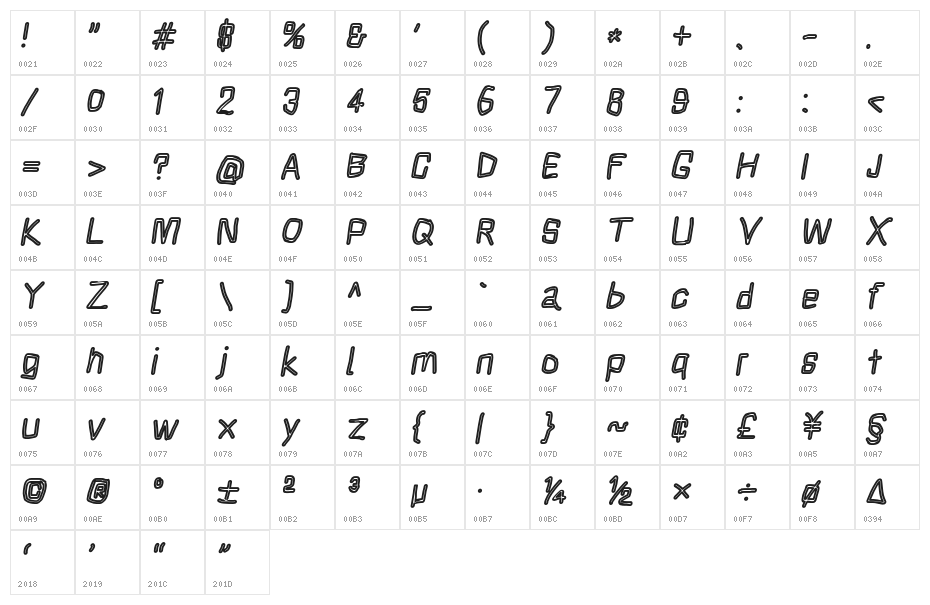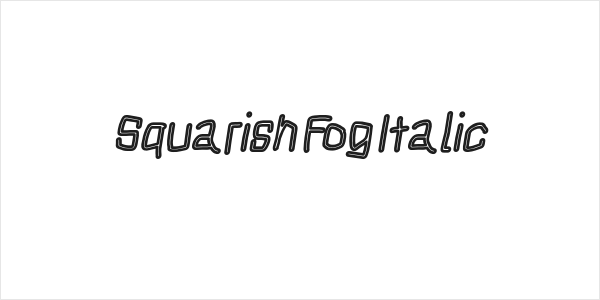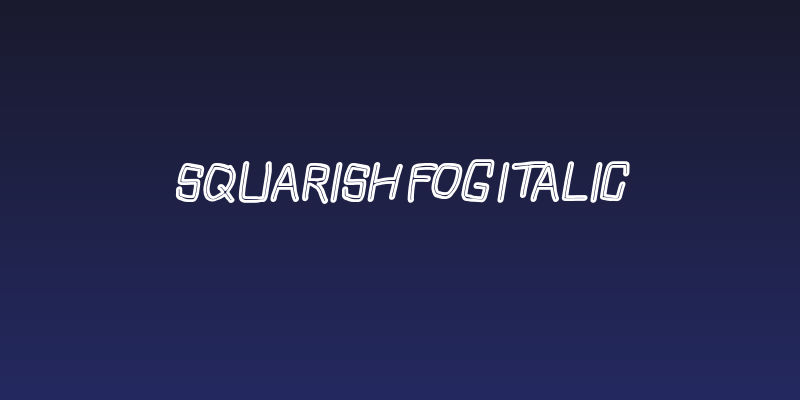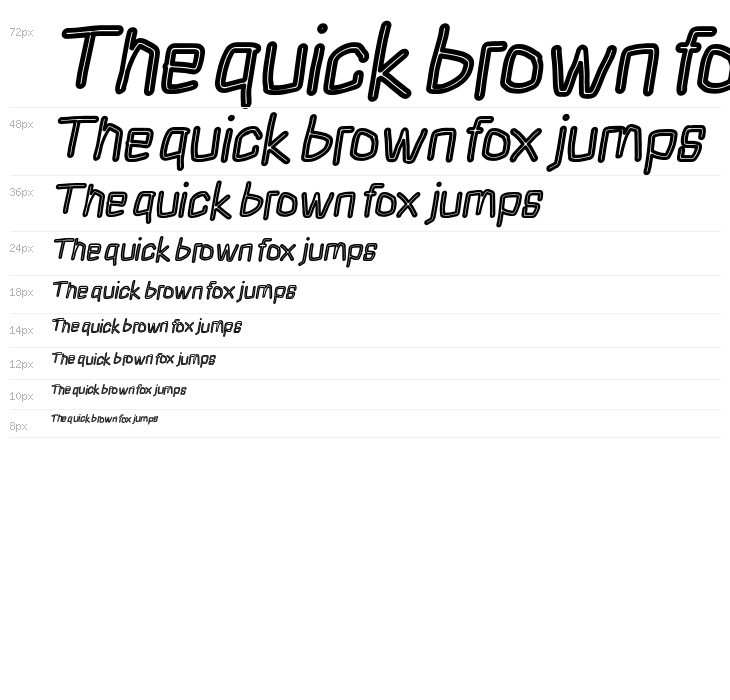
Squarish Fog Italic Font
Squarish Fog Italic Description
This font presents a unique blend of modern and playful characteristics, featuring a bold, outlined style that gives each character a distinct presence. The letters are slightly slanted, adding a dynamic and energetic feel, while the rounded edges soften the overall look. The uppercase and lowercase letters maintain a consistent style, with a uniform thickness that enhances readability. The numerals and special characters follow the same design principles, ensuring a cohesive appearance across all elements. This font's distinctive style makes it suitable for creative and informal applications.
| Proposed Projects | Ideal for branding, posters, children's books, and creative digital content. |